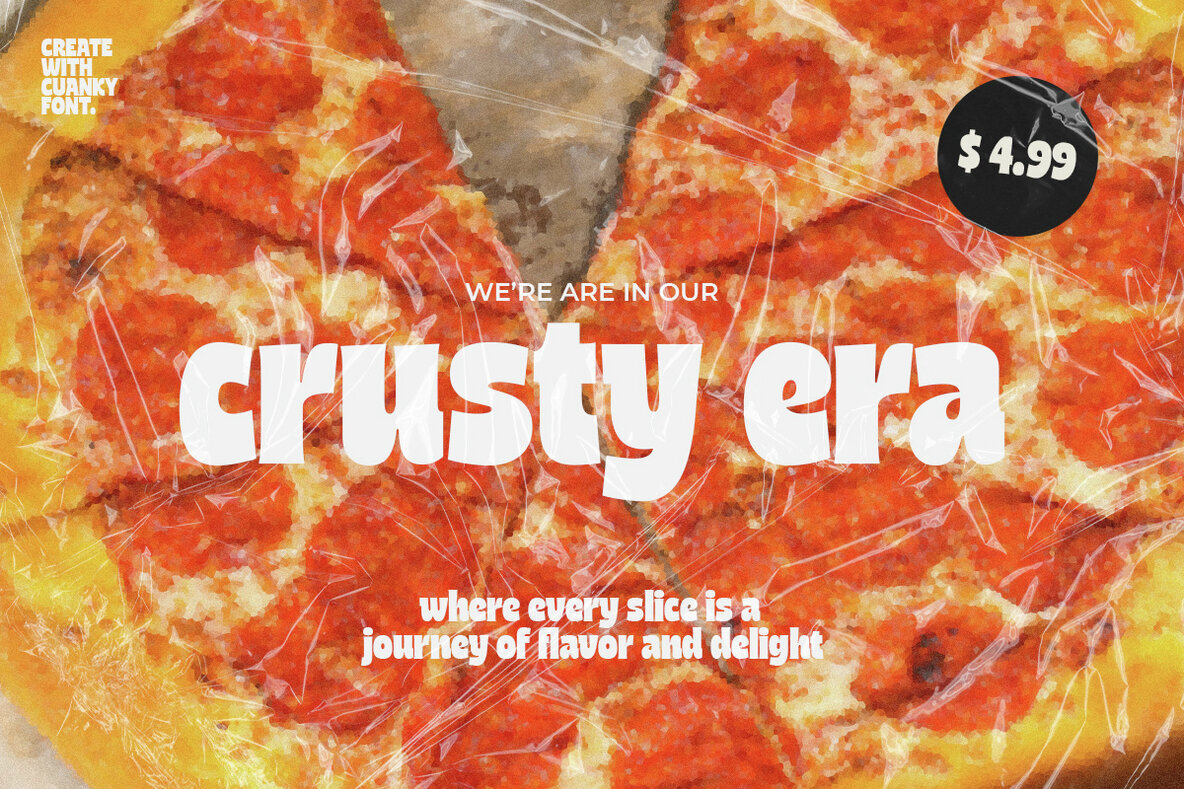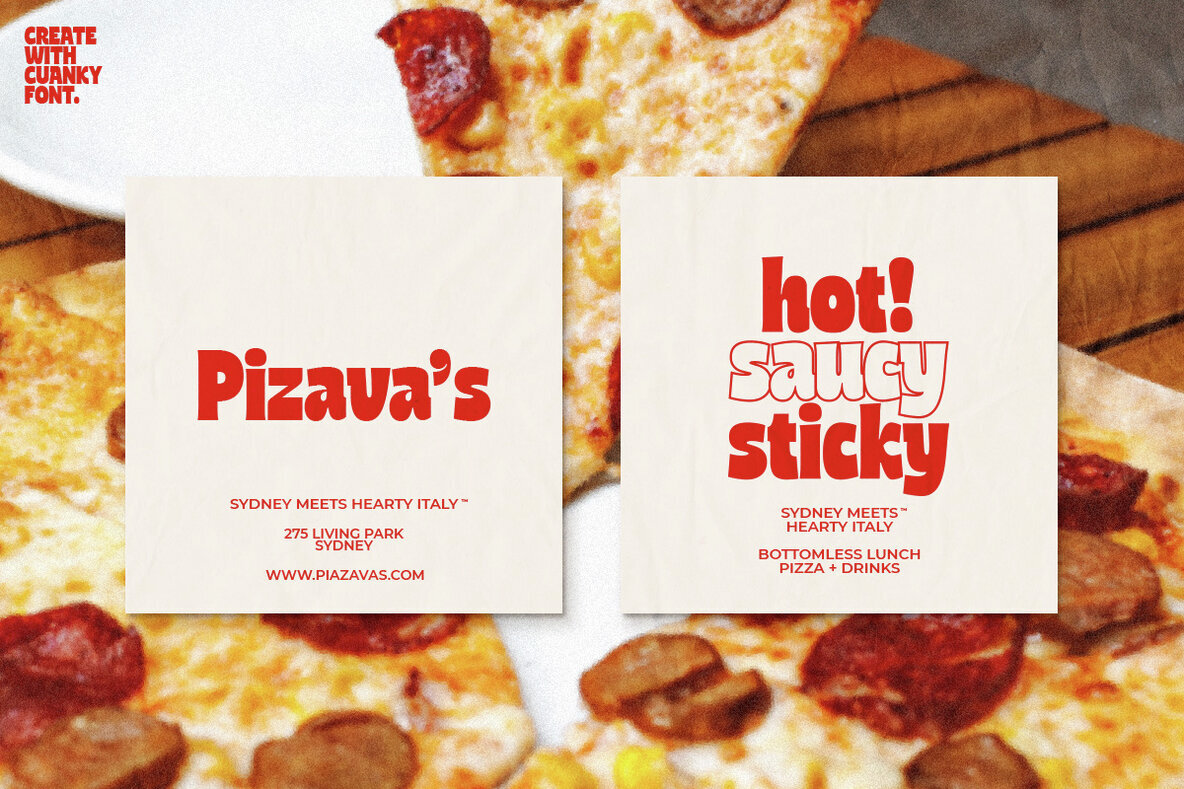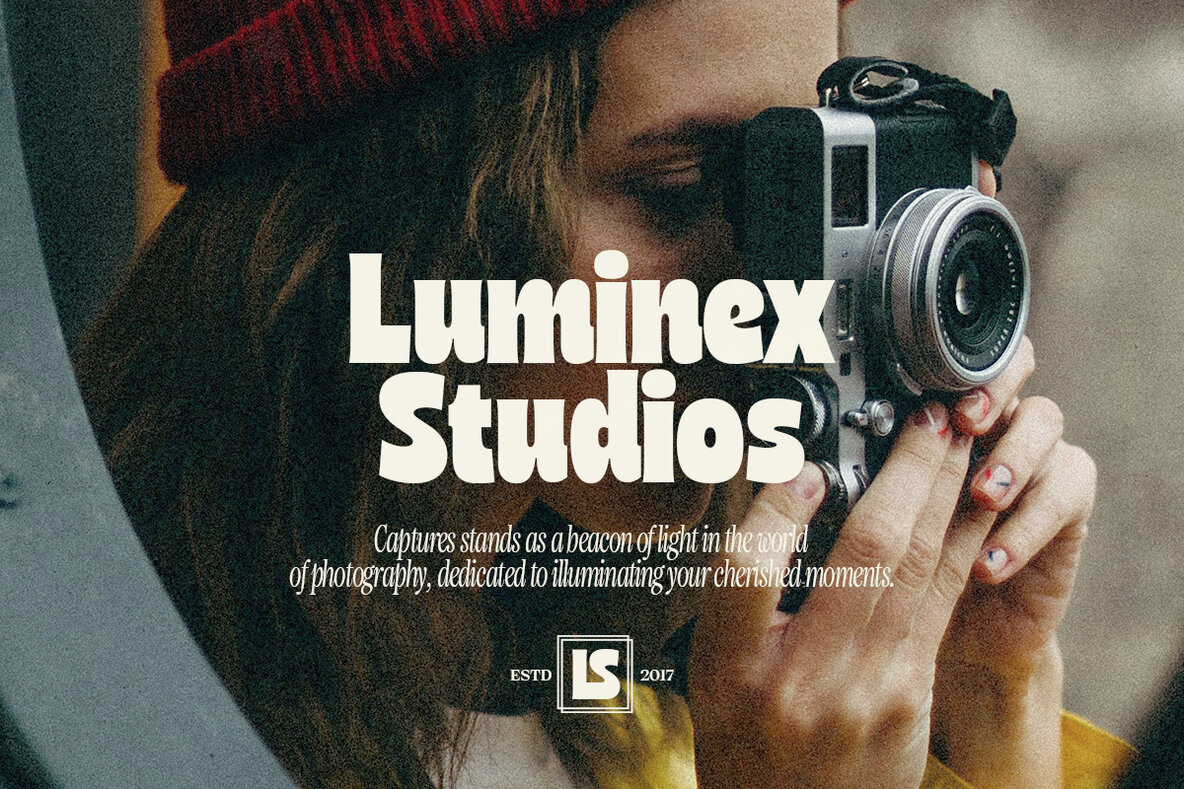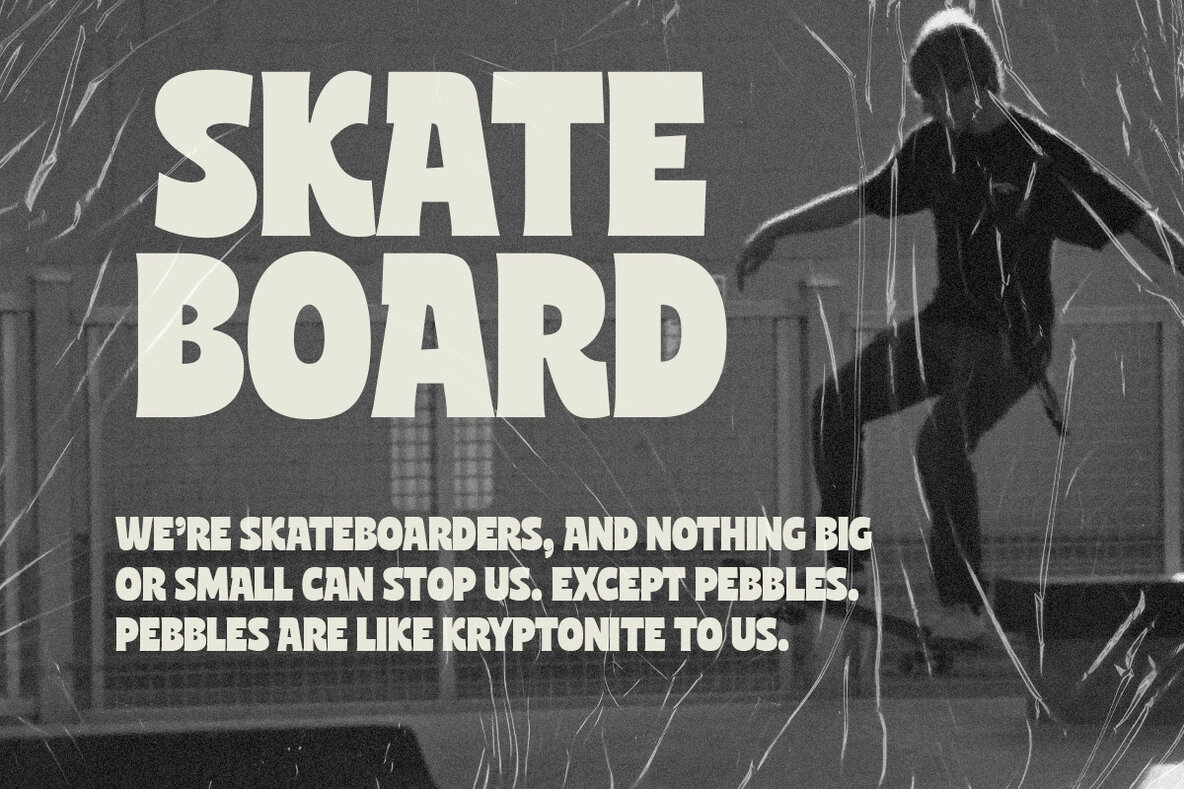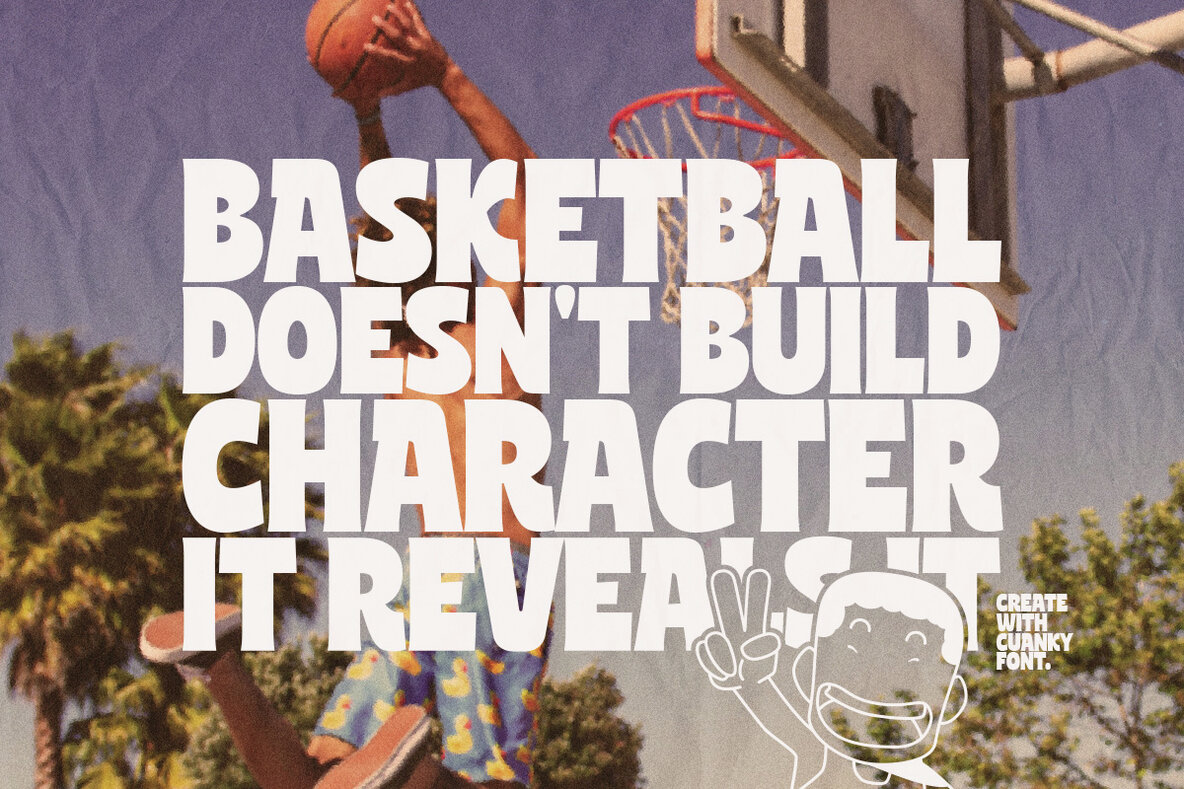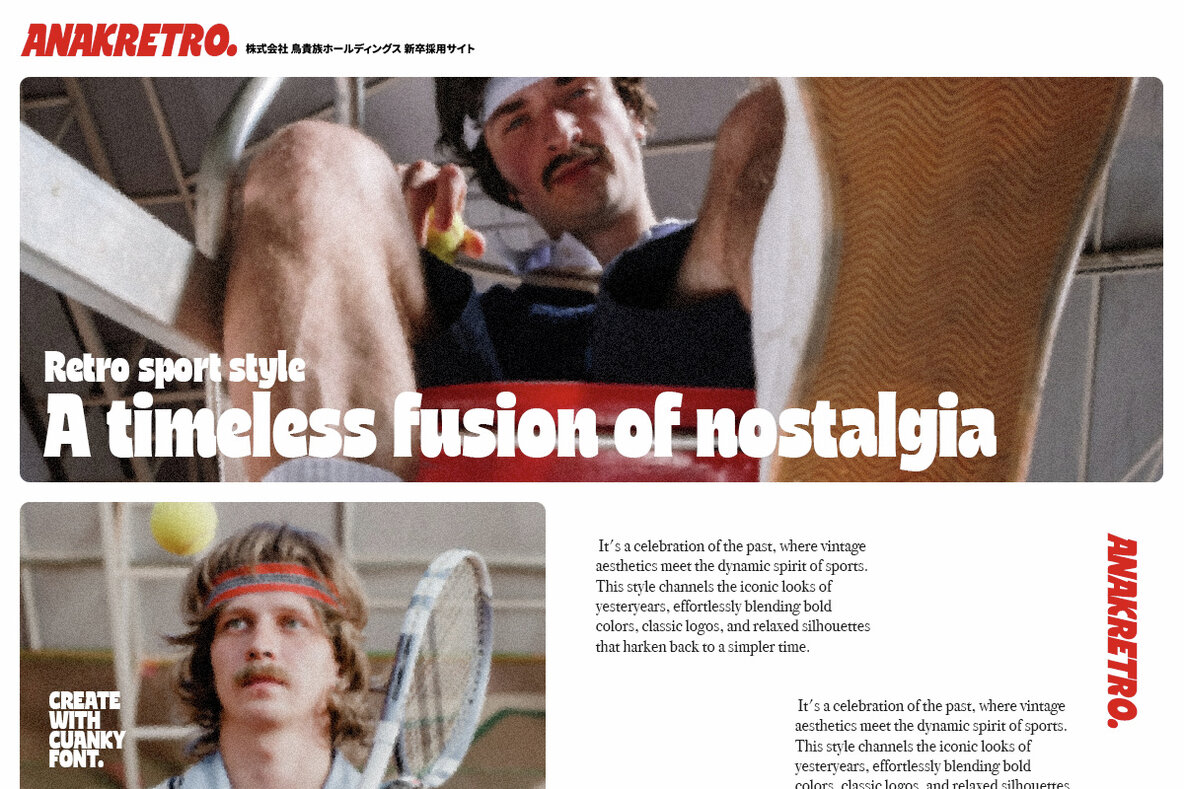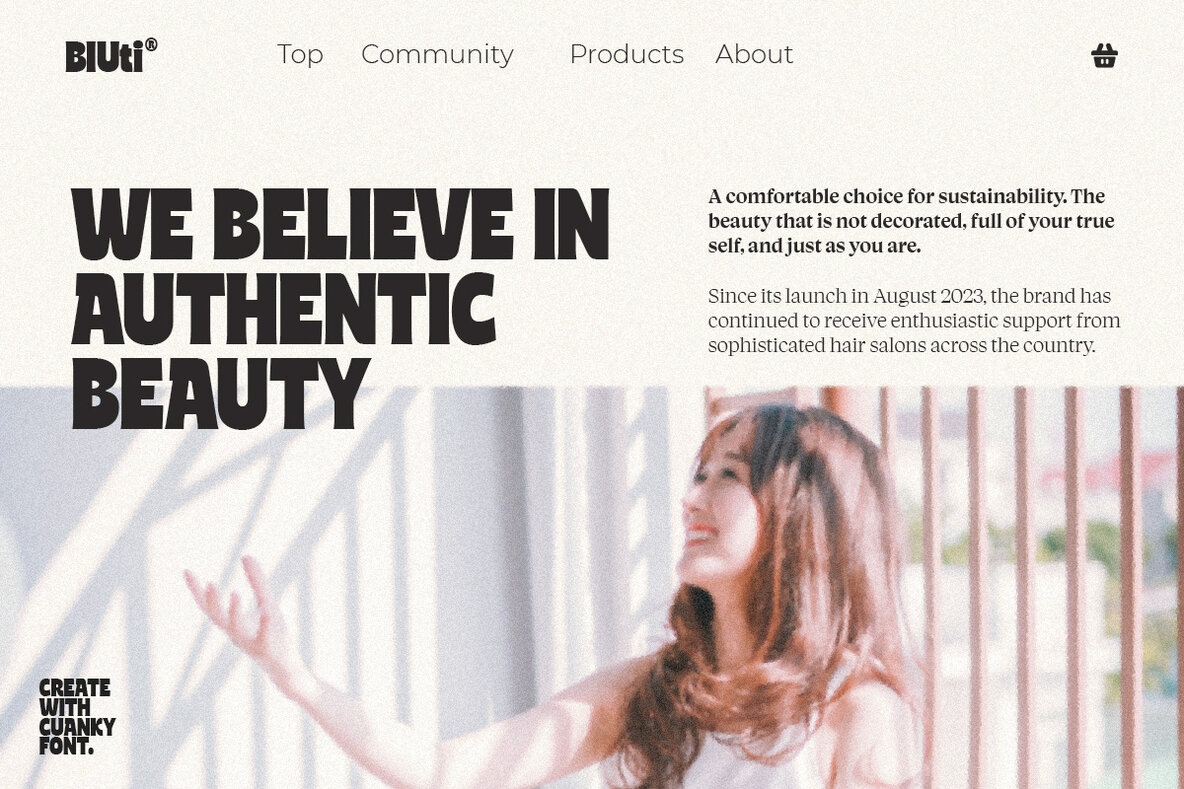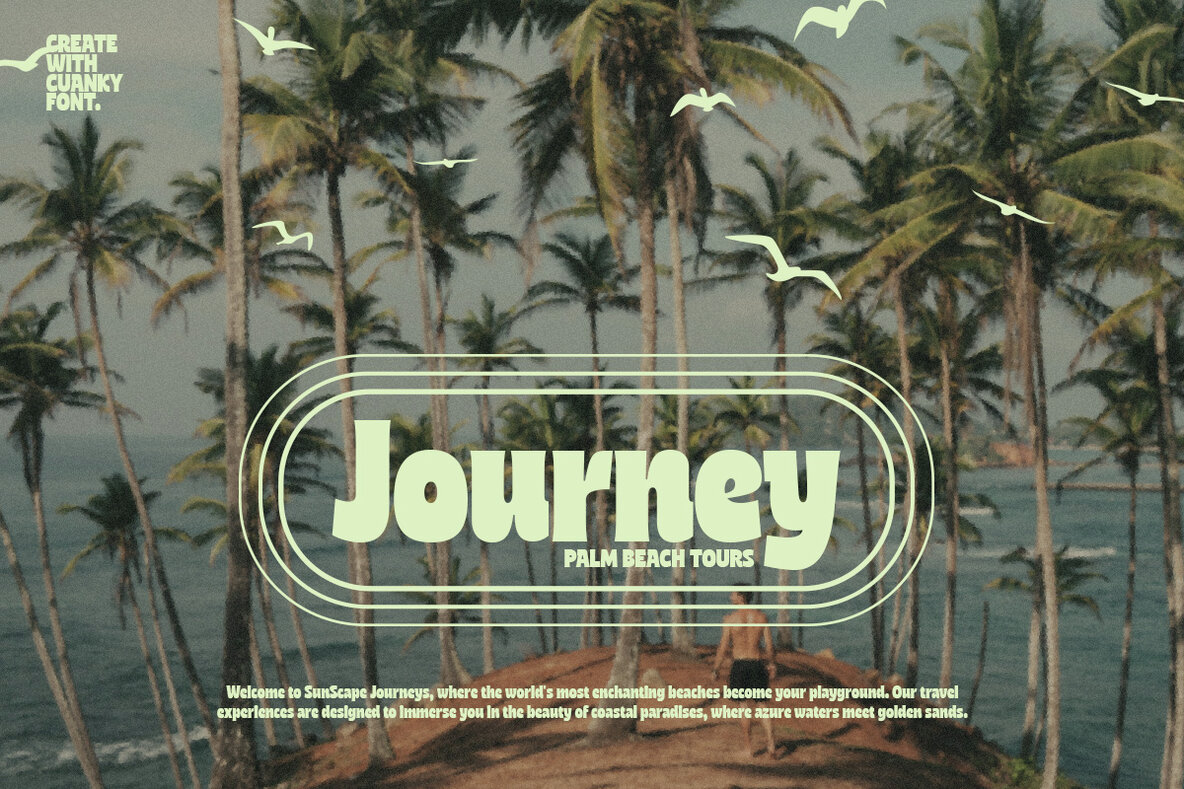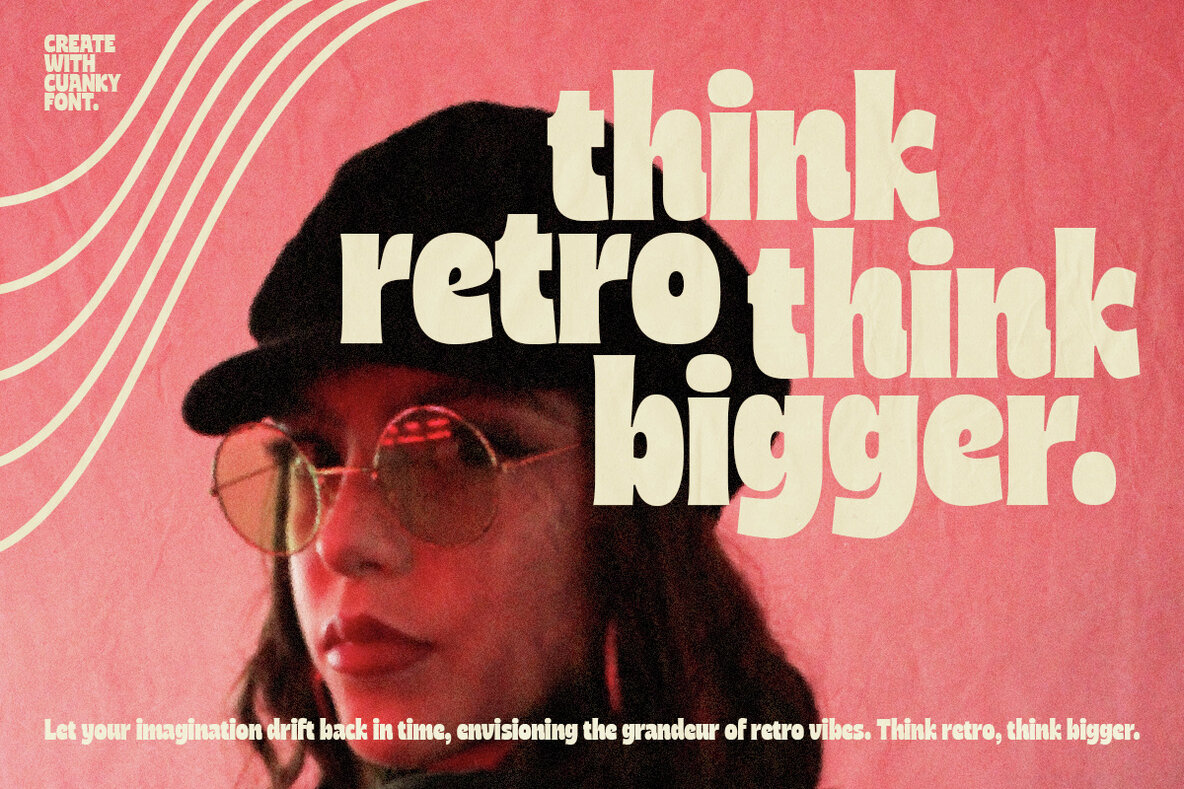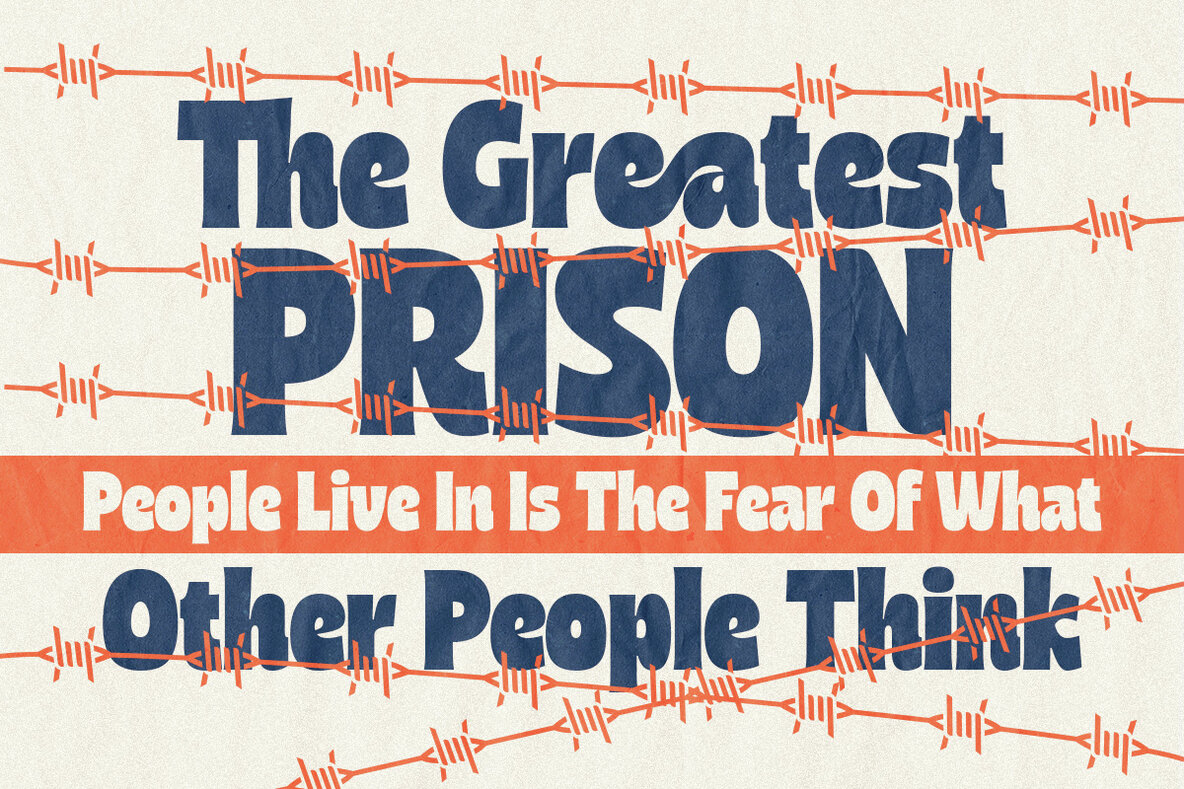
Cuanky Font
Cuanky Regular
Cuanky Italic
Cuanky is a super fun, retro-style sans serif font with subtle serifs. It possesses a recognizable flair and evokes a sense of warm nostalgia. Available in both regular and italic styles, Cuanky also features a playful hint of the future. Cuanky is perfect for headlines or food-related designs, such as pizza, burgers, and restaurant themes. Additionally, it's well-suited for creating eye-catching posters with a cool aesthetic.